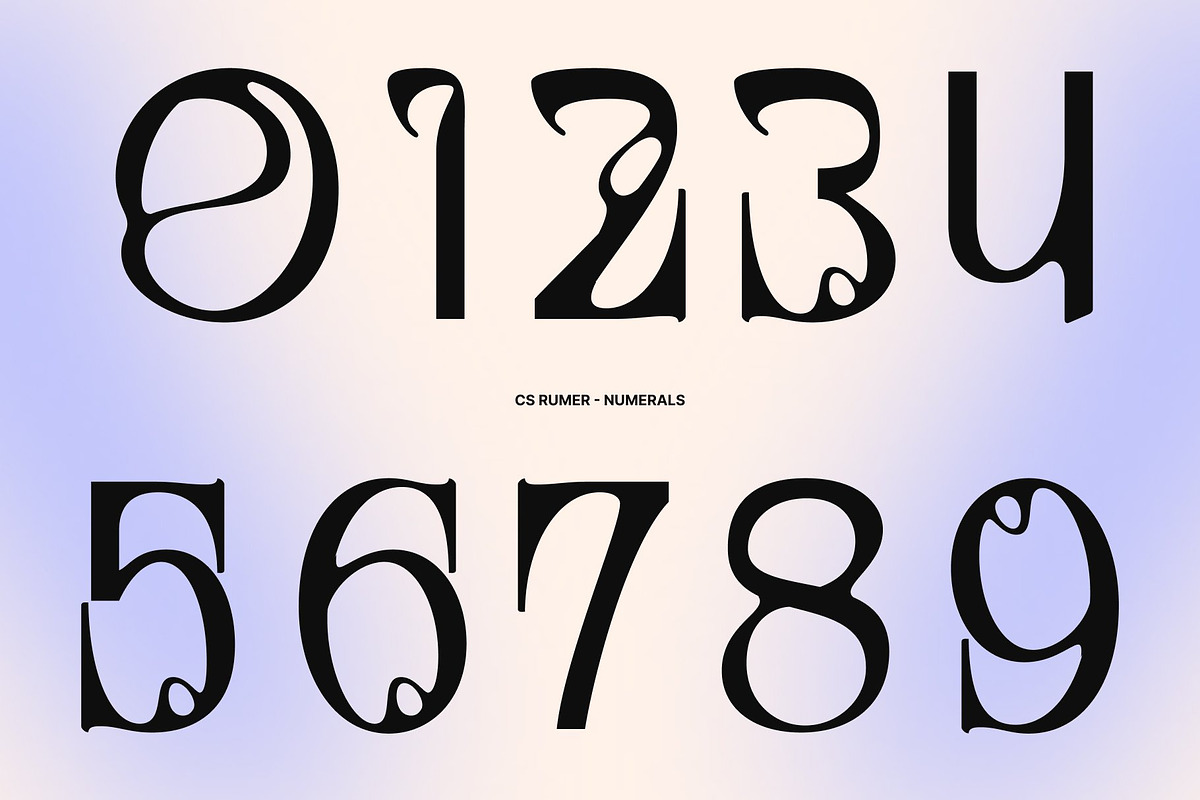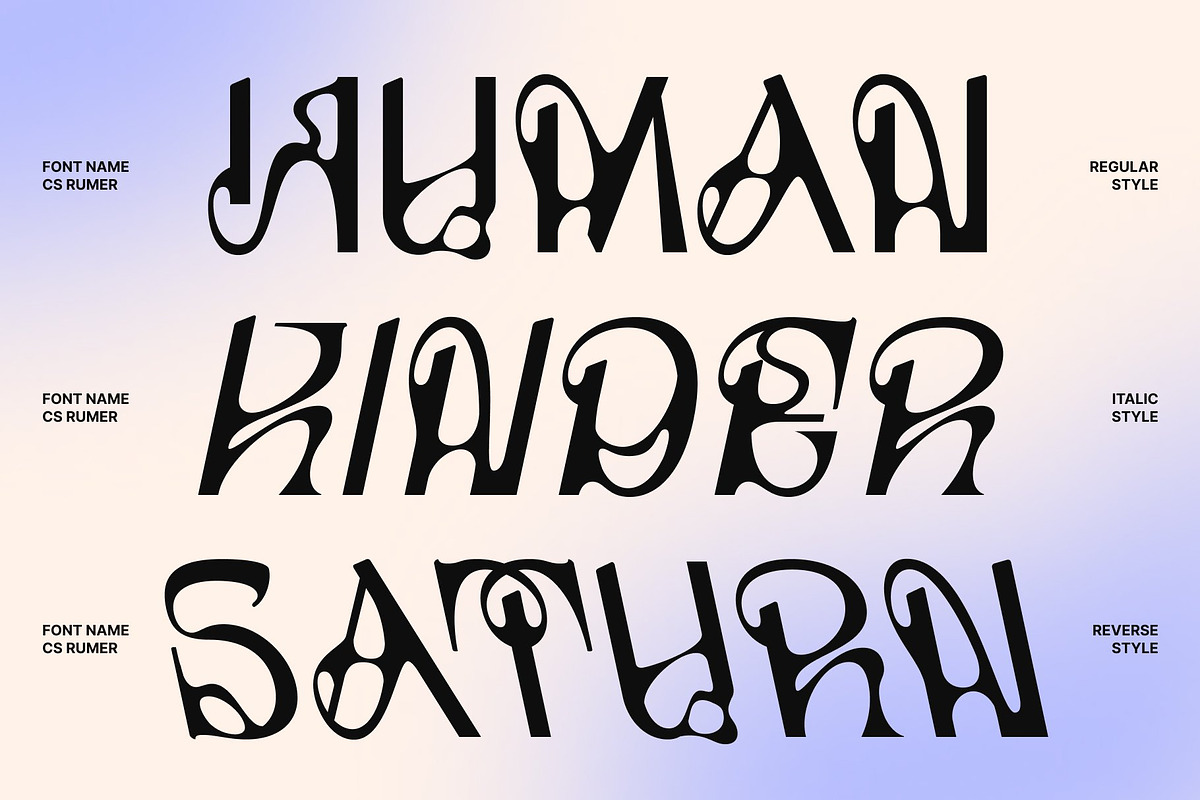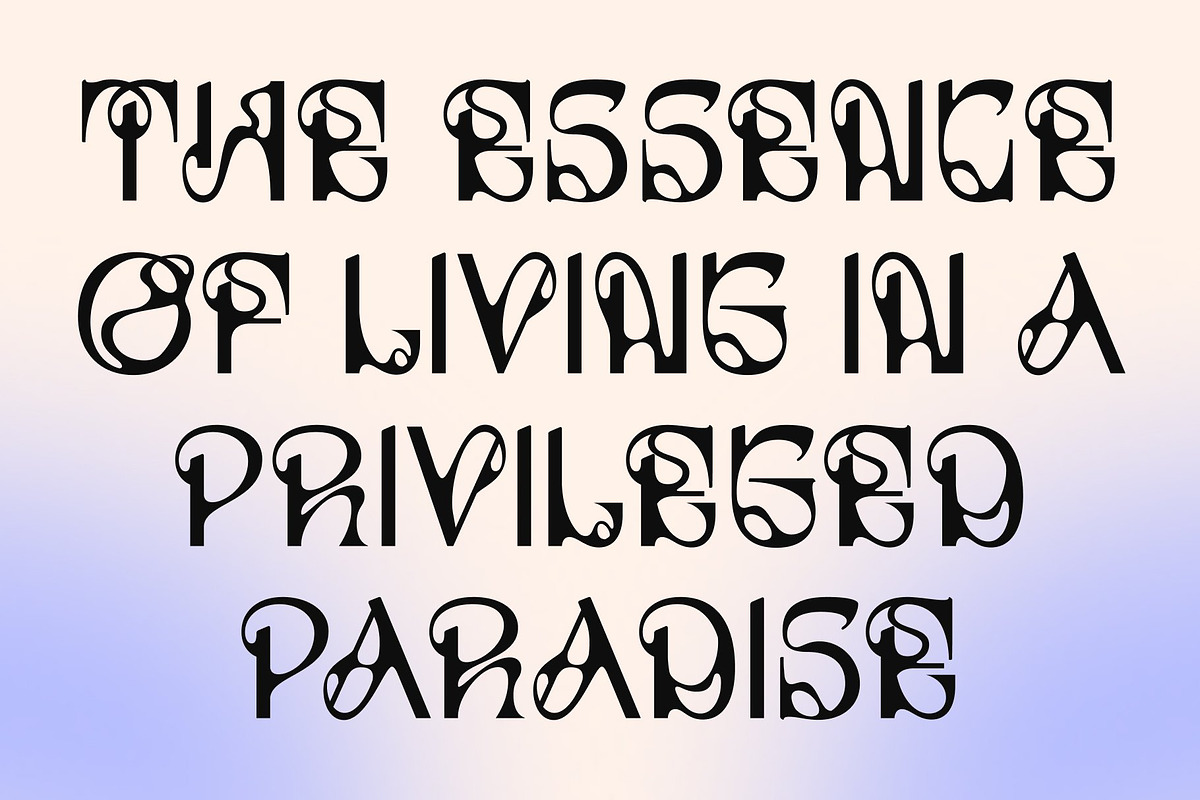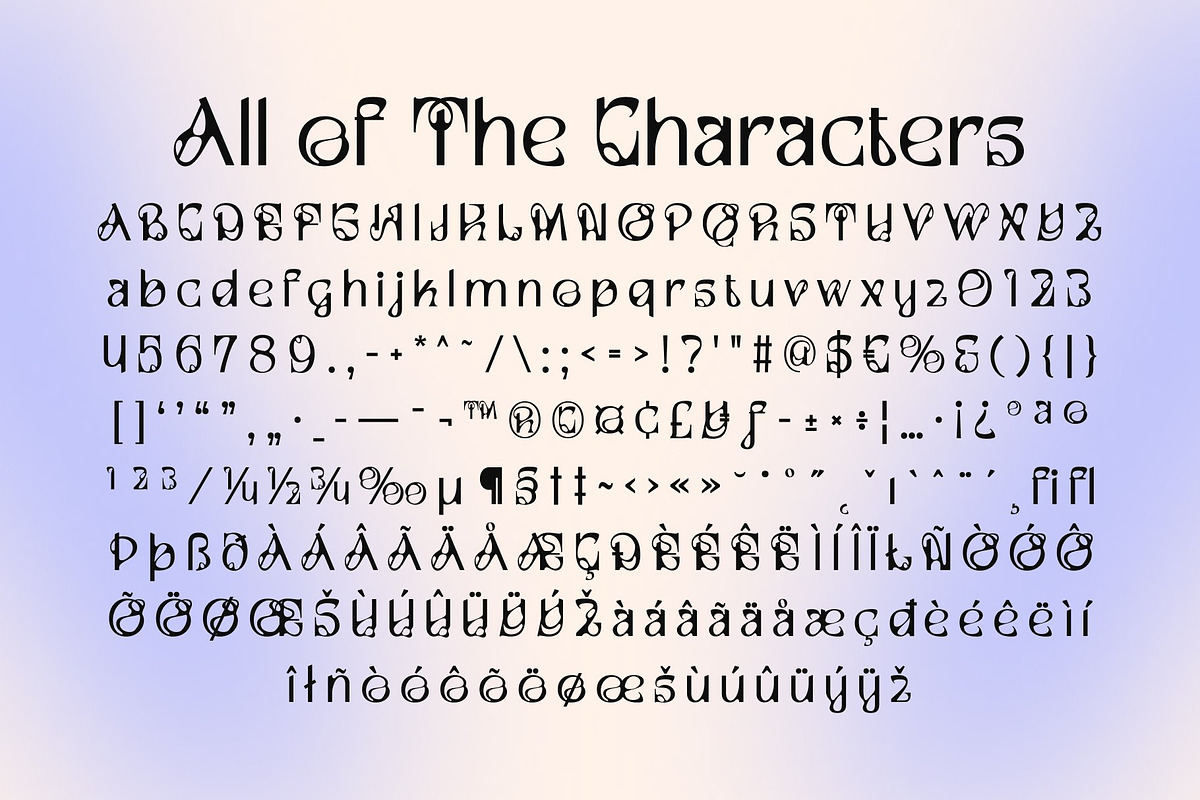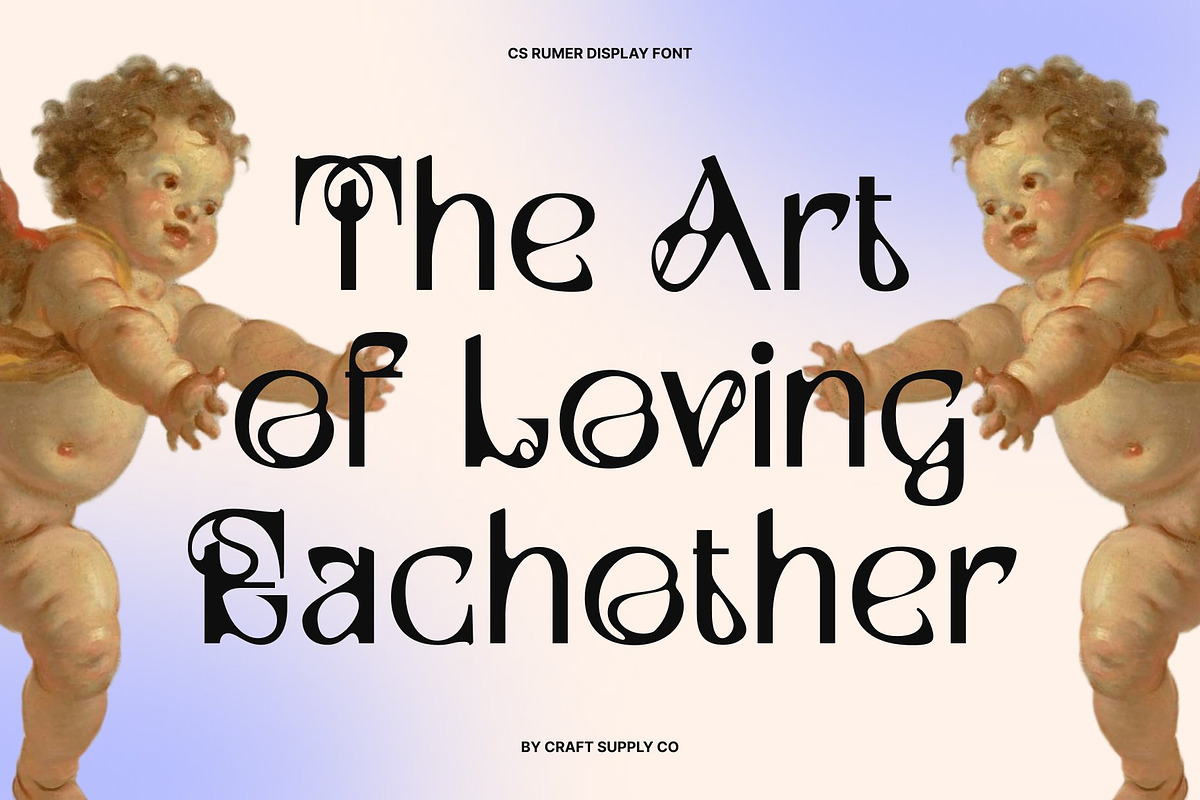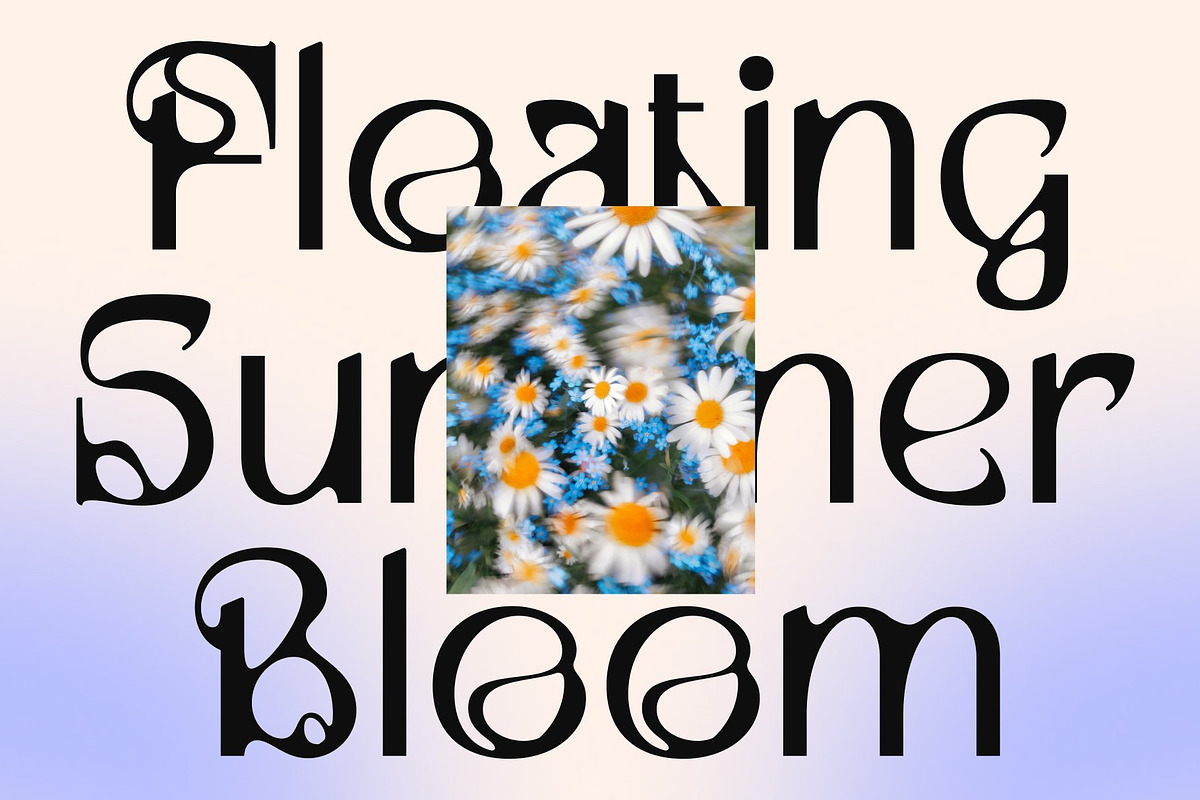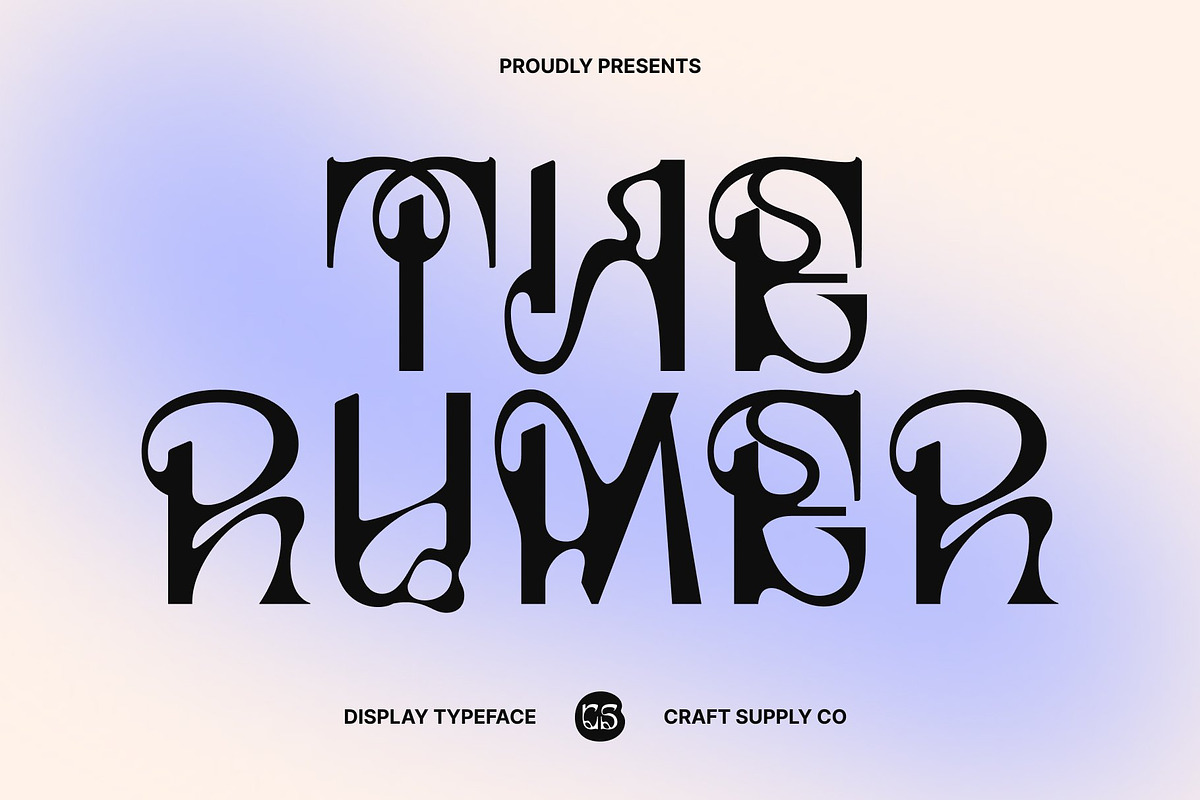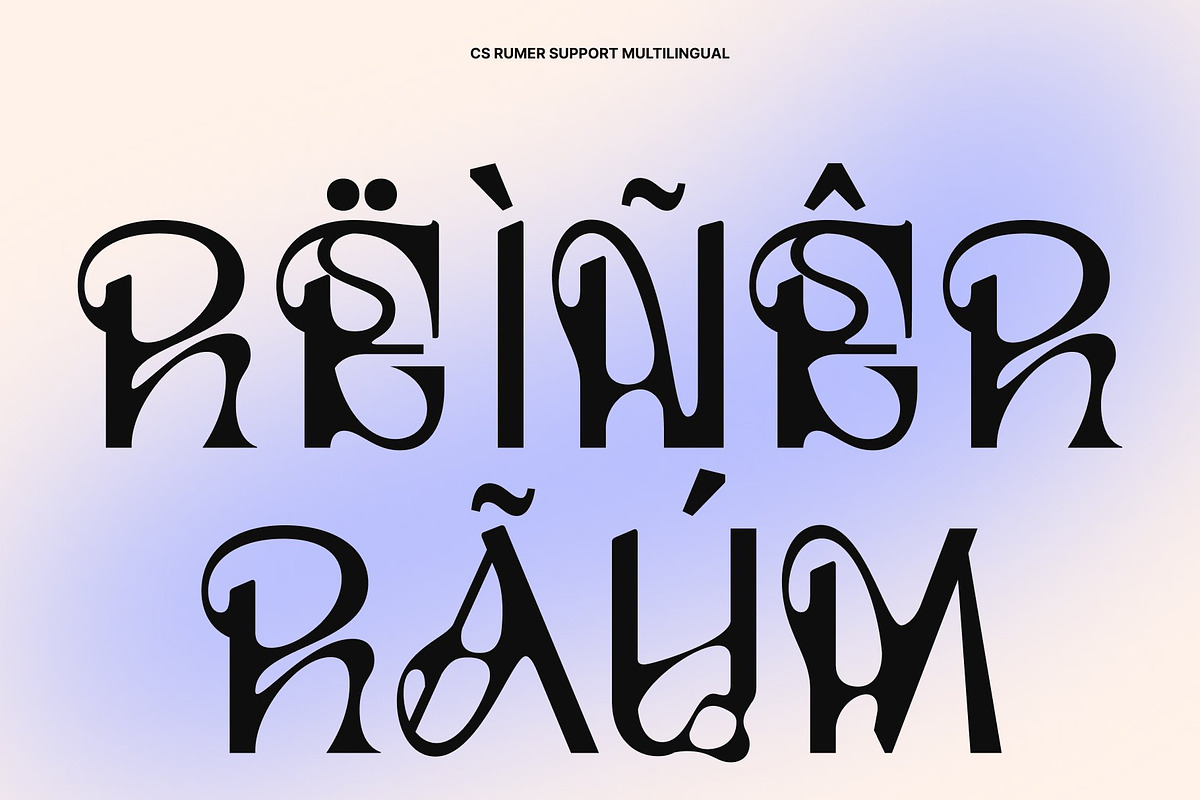
Rumer – Melted Sans Serif
CS Rumer – Melted Sans Serif with Fluid Elegance
Modern Sans Serif with Artistic Art Nouveau Influence This is a stylish sans serif font that blends the graceful beauty of Art Nouveau with an innovative melted concept. Designed with flowing curves and organic movement, this typeface transforms traditional sans serif forms into an expressive visual statement. The result is a font that feels elegant, contemporary, and artistically distinctive, perfect for designers seeking a fresh approach to modern typography.
Elegant Letterforms with Fluid Melted Effects The defining feature of lies in its elegant letterforms enhanced by fluid dripping details. These melted effects create a sense of motion and organic flow, giving the font a unique personality that feels both sophisticated and experimental. The contrast between clean sans serif foundations and liquid-inspired distortions produces a captivating visual rhythm that draws attention instantly.
Creative Expression with Contemporary Style Inspired by the decorative elegance of Art Nouveau, this font introduces artistic curves and natural forms that soften its modern structure. This fusion of classic inspiration and experimental design creates a stylish typeface that feels luxurious, creative, and trend-forward.
Perfect for Fashion, Editorials, and Creative Branding From luxury fashion branding and editorial layouts to posters, packaging, and artistic campaigns, this font offers a versatile typographic solution. Its combination of Art Nouveau elegance, melted details, and contemporary sans serif clarity ensures your designs feel distinctive, expressive, and unforgettable.
CS Rumer Regular
CS Rumer Italic
CS Rumer Reverse Italic